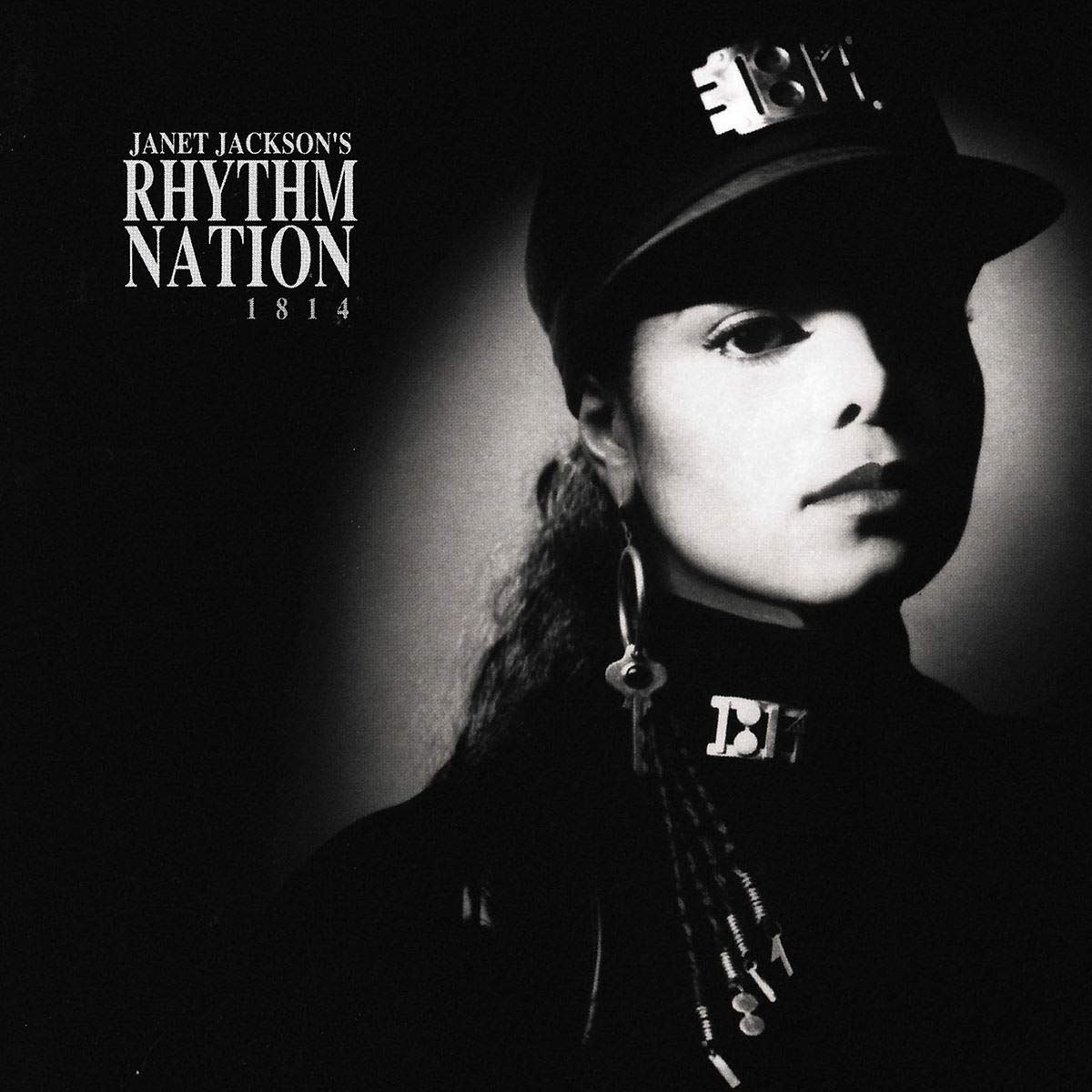
Rhythm Nation 1814 Font
Fonts in UseRhythm Nation 1814 is the fourth studio album by American singer Janet Jackson, released in 1989. It became a critical and commercial success, with its socially conscious lyrics and innovative fusion of various music genres.
The album title's font appears to be a condensed variant of Times New Roman Bold Condensed, which was originally designed by Stanley Morison and Victor Lardent and first released in 1931.